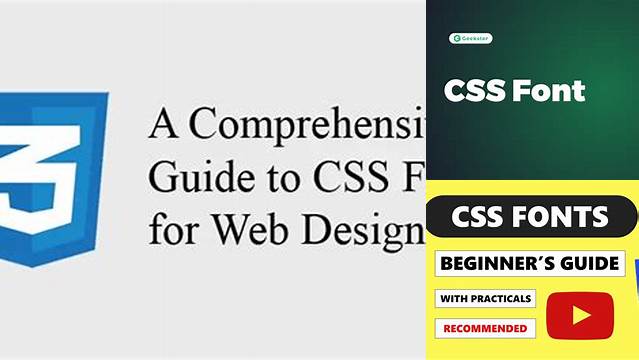
CSS Text Fonts: The Ultimate Guide For Web Developers
Introduction to CSS Text Fonts
CSS text fonts are fundamental to web design, enabling developers to control the visual appearance of text on websites. Choosing the right fonts and styling them effectively can significantly enhance readability, convey brand identity, and improve the overall user experience. In this comprehensive guide, we'll dive deep into the world of CSS text fonts, exploring various aspects from basic font properties to advanced techniques.
First, let's understand why typography matters so much in web design. Think about it, guys – text is the primary way we communicate information online. If your text is hard to read or just plain ugly, people are going to bounce faster than a rubber ball. That’s where CSS fonts come in to save the day. We're not just talking about making the text look pretty; we're talking about making it readable, engaging, and consistent with your brand. A well-chosen font can set the tone for your entire website, whether it’s professional, playful, or serious. Imagine a law firm using Comic Sans – yeah, not a great look, right? So, font selection is key. You've got serif fonts, which are classic and traditional; sans-serif fonts, which are clean and modern; and then you've got a whole bunch of other categories like monospace, cursive, and fantasy fonts for those special occasions when you want to get a little wild. But with great power comes great responsibility. You can't just throw any old font on your website and hope for the best. You need to consider things like readability, especially on different devices, and how well the font fits with your overall design. And that's where CSS comes in. CSS gives you the tools to style your fonts exactly the way you want them. You can control the size, the color, the spacing, the weight – basically everything. It’s like being a master typographer, but instead of using a printing press, you're using code. So, if you're serious about web design, you need to get serious about CSS text fonts. It's not just about making things look pretty; it's about making things work. It's about creating a website that's a pleasure to use, a website that people will actually want to stick around and read. And that all starts with choosing the right fonts and styling them with CSS.
Basic CSS Font Properties
When it comes to styling text with CSS, several fundamental properties dictate how fonts are displayed. These properties are the building blocks for creating visually appealing and readable content. Let's explore some essential CSS font properties:
font-family
: Thefont-family
property specifies the font to be used for an element. It accepts a list of font names as a fallback mechanism. For example, you might specifyfont-family: Arial, Helvetica, sans-serif;
. This tells the browser to use Arial if it's available, Helvetica if Arial isn't, and a generic sans-serif font if neither Arial nor Helvetica is found. Guys, this is like having a backup plan for your fonts. You want to make sure your text looks good, even if the user doesn't have your first-choice font installed. That's why it's crucial to include a font stack, which is just a list of fonts that the browser will try to use in order. Start with the font you really want, then add some common alternatives, and always end with a generic font family likesans-serif
orserif
. This way, you're covered no matter what. And remember, thefont-family
property is case-insensitive, soArial
is the same asarial
. But it's good practice to use the correct capitalization, just to keep your code clean and readable. Now, when you're choosing fonts, think about the overall tone and style of your website. Serif fonts like Times New Roman and Georgia tend to look more formal and traditional, while sans-serif fonts like Arial and Helvetica are more modern and clean. You can also use other types of fonts, like monospace fonts (where each character takes up the same amount of space) or cursive fonts (which look like handwriting), but use them sparingly. They can be hard to read in large blocks of text. So, thefont-family
property is your foundation. It's the first thing you need to think about when you're styling text. Get it right, and the rest will fall into place. Choose your fonts wisely, create a solid font stack, and you'll be well on your way to beautiful and readable typography.font-size
: Thefont-size
property determines the size of the text. It can be specified in various units such as pixels (px
), ems (em
), rems (rem
), or percentages (%
). Using relative units likeem
andrem
is often recommended for responsive design. Setting thefont-size
is like deciding how loud your text should speak. Too small, and it's a whisper that nobody can hear. Too big, and it's a shout that's overwhelming. You need to find that sweet spot where your text is just right – readable, comfortable, and visually appealing. Now, there are a few different ways to specify font size in CSS, and each has its own pros and cons. You can use pixels (px
), which are absolute units. This means that 1 pixel will always be 1 pixel, no matter what. Pixels give you precise control, but they're not very flexible. If a user changes their default font size in their browser, your pixel-based text won't adjust. That's where relative units likeem
andrem
come in. Ems are relative to the font size of the parent element. So, if the parent element has a font size of 16px, then1em
is equal to 16px. This can be a little confusing at first, but it's incredibly powerful for creating scalable layouts. Rems are similar to ems, but they're relative to the root element (usually the<html>
element). This makes them even more predictable and easier to use. Personally, guys, I'm a big fan of rems. They make it so much easier to manage font sizes across an entire website. You can set a base font size on the<html>
element, and then all your other font sizes will scale proportionally. It's like magic! You can also use percentages to specify font size. A percentage is relative to the font size of the parent element, just like ems. So,100%
is the same as1em
. But remember, it's not just about the numbers. It's about how your text looks on the page. A font size that looks great on a desktop might be too small on a mobile device. That's why it's essential to test your website on different screens and devices and adjust your font sizes as needed. So, play around with different units, experiment with different sizes, and find what works best for your design. And don't be afraid to adjust your font sizes as your website evolves. Typography is a journey, not a destination.font-weight
. Thefont-variant
property is like discovering a secret menu for your fonts. It's about unlocking hidden features and adding subtle refinements to your typography. It's not something you'll use every day, but when you need it, it can be a real lifesaver. The most common value forfont-variant
issmall-caps
. This tells the browser to display lowercase letters as small capital letters. It's a great way to add a touch of elegance to your headings or to distinguish acronyms and abbreviations. Imagine you're writing a blog post about CSS, and you want to make the acronym